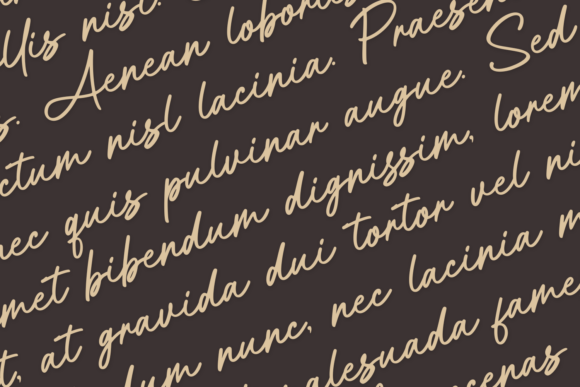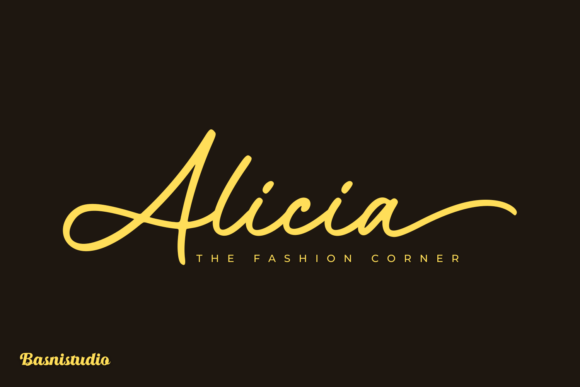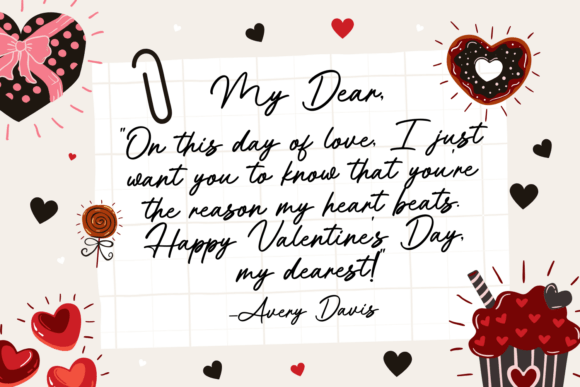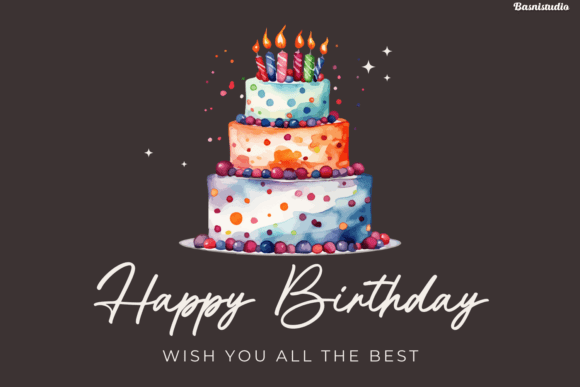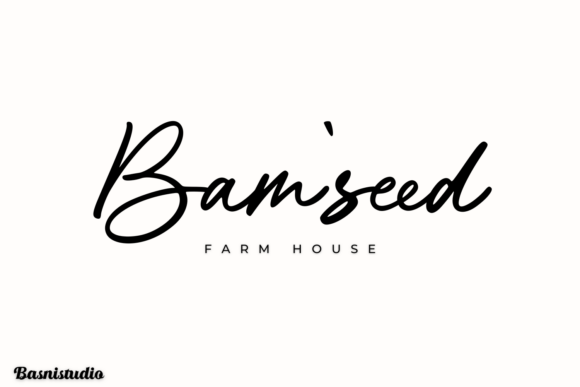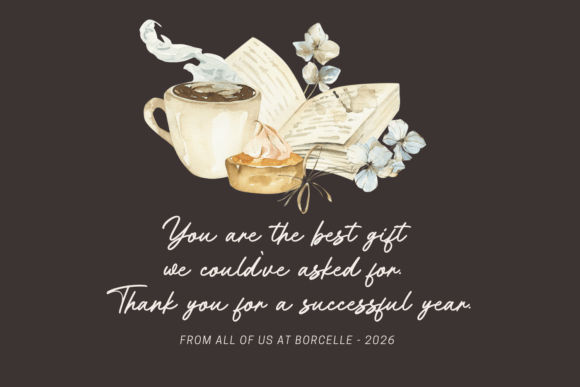
The Elusive Font: A Journey to Discover Aittemia Seikage
I still remember the countless hours I spent searching for the perfect font for a photography project. My client wanted something that exuded elegance, yet felt approachable and casual. I scrolled through page after page of Google results, tried out font after font, but nothing seemed quite right. That was until I stumbled upon Aittemia Seikage – a stunning script font that instantly captured the essence of what I was looking for.
Aittemia Seikage: The Perfect Blend of Elegance and Casualness
Aittemia Seikage is a beautiful, authentic script font that conveys natural beauty and casual modern elegance with its natural brush movement. This typeface is a delicate and fluid casual brush script, characterized by its mono-line thickness, which gives it a contemporary feel, and its slightly irregular, bouncy baseline, which provides an organic, freehand rhythm.
The smooth, continuous connections between the letters mimic a rapidly written signature, making it feel highly personal and genuine. Aittemia Seikage is an exceptional choice for photography watermarks, feminine branding, natural product packaging, blog headers, and romantic quotes, offering a light, sophisticated, and effortlessly modern handwritten style.
- ✨ Natural Brush Movement: Aittemia Seikage’s organic feel makes it perfect for designs that require a personal touch.
- ✅ Easy to Read: Despite its casual nature, the font remains highly legible, even at smaller sizes.
- 💫 PUA-Encoded: The font is encoded with PUA (Private Use Area) characters, ensuring effortless access to all glyphs, swashes, and alternate characters.
- 📸 Versatile: Suitable for a wide range of design projects, from photography to branding and packaging.
- ⚠️ Limited Use in Formal Contexts: Aittemia Seikage’s casual nature makes it less suitable for formal or corporate designs.
- 🤔 Requires Some Experimentation: To get the most out of the font’s OpenType features, some experimentation with glyphs and stylistic alternates may be required.
The Designer Inspiration Behind Aittemia Seikage
While the true story behind Aittemia Seikage’s creation remains a mystery, it’s easy to imagine a designer inspired by the natural world and the art of handwritten lettering. Perhaps they sought to capture the essence of a carefree summer day, where the sun shines bright and the flowers bloom in every color of the rainbow.
The result is a font that feels both modern and timeless, perfect for designers looking to add a touch of elegance and whimsy to their creations.
Q: Can I use Aittemia Seikage for my branding and packaging?
A: Absolutely! Aittemia Seikage is perfect for feminine branding, natural product packaging, and more.
Q: Is Aittemia Seikage suitable for body text?
A: While Aittemia Seikage is beautiful, it’s best suited for headings and titles. For body text, a more traditional font may be more readable.